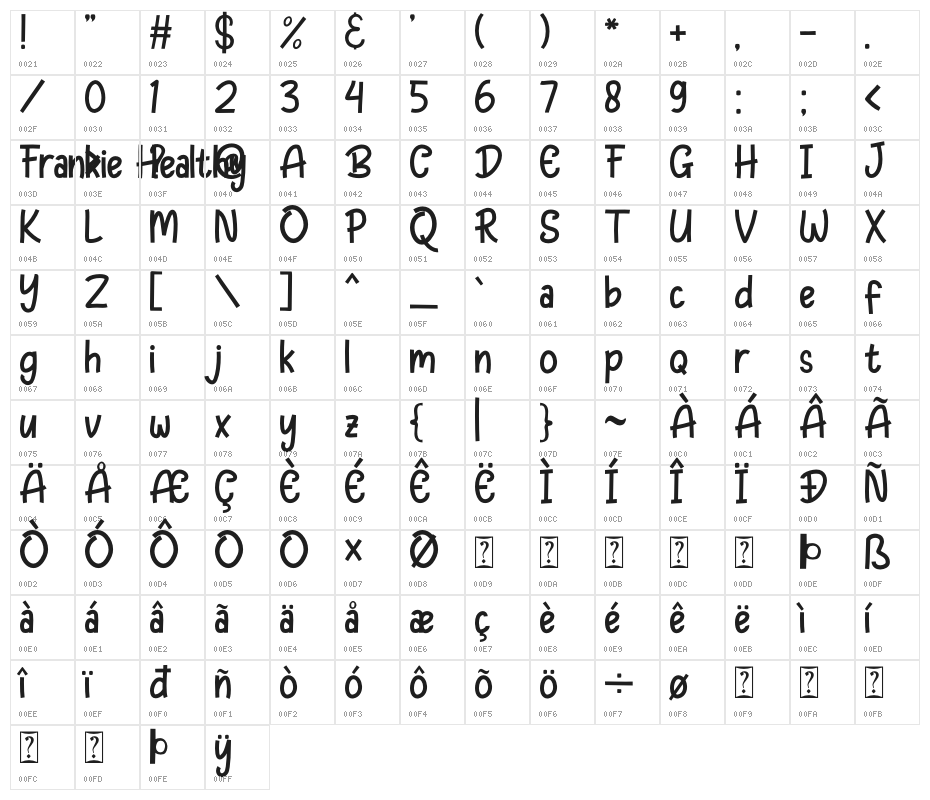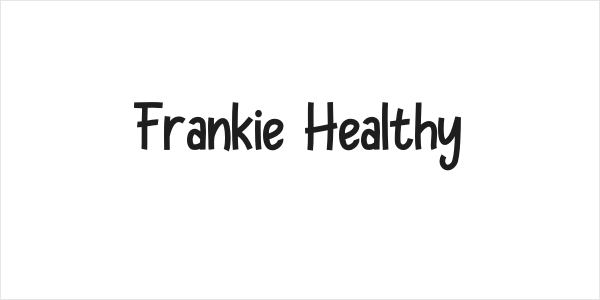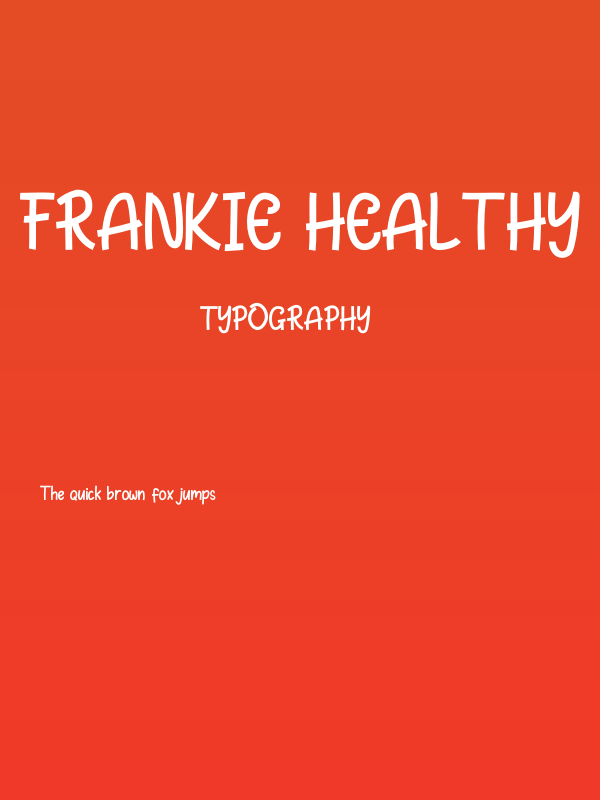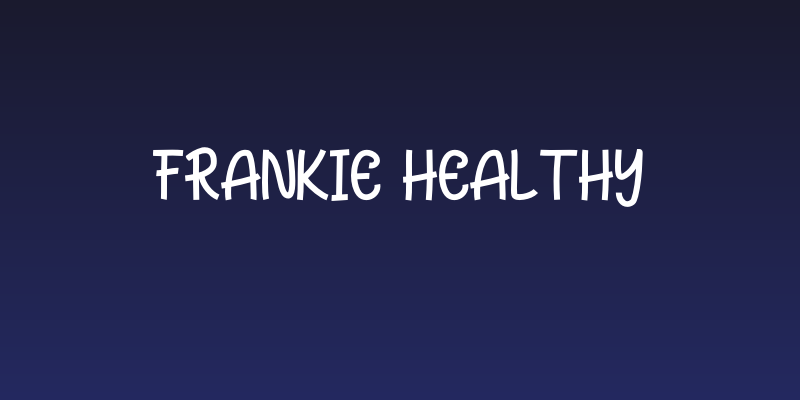
Frankie Healthy Font
Frankie Healthy Description
This playful and energetic font features a handwritten style with a bold and slightly irregular appearance. The characters are rounded and have a casual, friendly vibe, making them ideal for projects that require a personal touch. The uppercase and lowercase letters maintain a consistent style, with a slight slant that adds to the dynamic feel. The numbers and special characters are equally expressive, ensuring a cohesive look across all text elements. The font's unique charm lies in its ability to convey warmth and approachability, making it suitable for a variety of creative applications.
| Use Case | Headlines, Logos, Informal text |
| Proposed Projects | Ideal for children's books, greeting cards, playful branding, and social media graphics. |